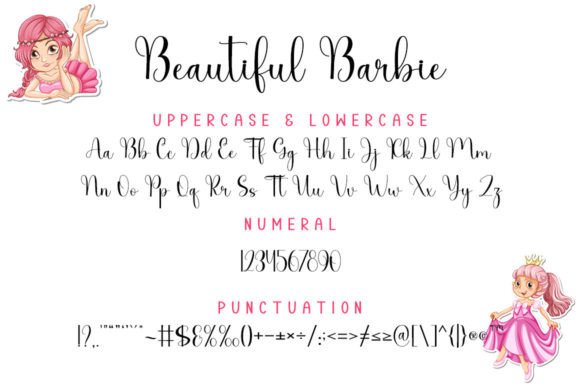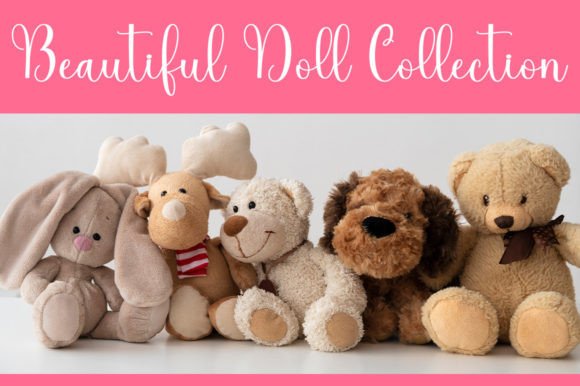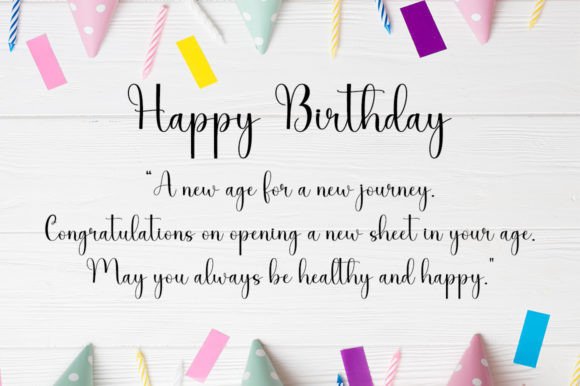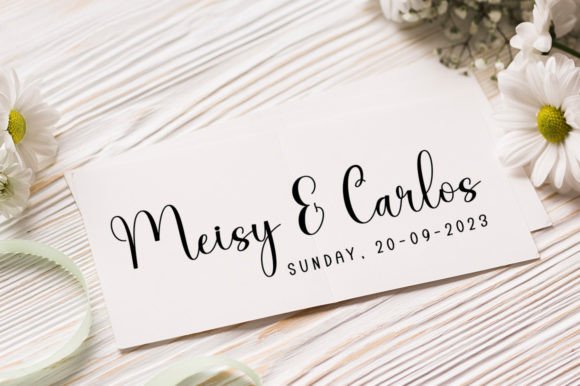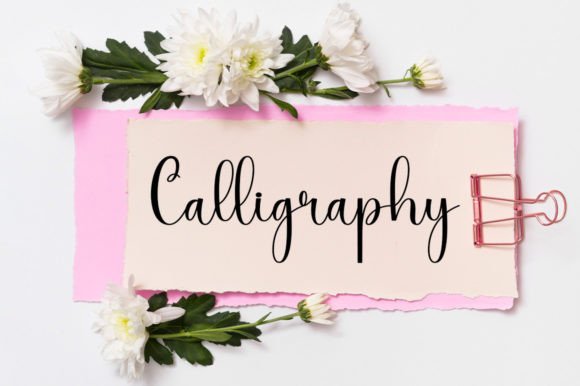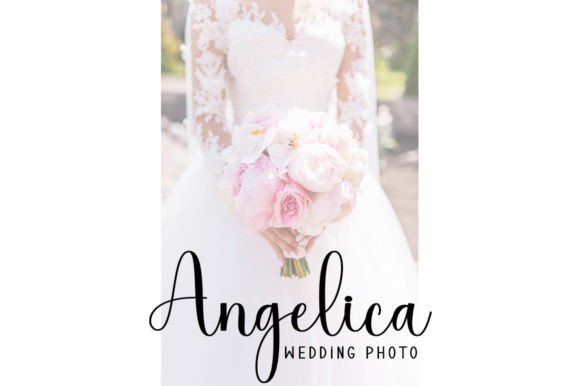
Introducing the Beautiful Barbie Font: A Cute and Casual Handwritten Delight
Are you on the hunt for a font that exudes friendliness and approachability? Look no further than the Beautiful Barbie Font! This adorable handwritten font is perfect for designers, crafters, and DIY enthusiasts looking to add a personal touch to their creative projects. With its incredibly friendly feel, Beautiful Barbie is sure to turn any idea into a true piece of art.
What Makes Beautiful Barbie Font So Special?
Beautiful Barbie is a one-of-a-kind font that boasts a unique, hand-crafted aesthetic. Its casual and cute vibe makes it perfect for a wide range of applications, from social media graphics and Instagram posts to calligraphy scripts and DIY projects. Whether you’re a seasoned designer or a crafting novice, this font is sure to inspire your creativity and help you bring your ideas to life.
Perfect for Instagram and Social Media
In today’s digital age, having a strong online presence is crucial. With Beautiful Barbie Font, you can elevate your Instagram game and create stunning social media graphics that are sure to grab attention. This font is specifically designed to work well in digital formats, making it perfect for:
- Instagram posts and stories
- Facebook graphics and ads
- Twitter headers and posts
- Pinterest graphics and pins
Its friendly and approachable feel makes it ideal for building a strong brand identity and connecting with your audience.
Calligraphy Scripts for DIY Projects
Beautiful Barbie Font is not just limited to digital use. Its elegant and cursive feel makes it perfect for calligraphy scripts and DIY projects, such as:
- Handmade cards and invitations
- DIY home decor and signs
- Customized gifts and mugs
- Paper crafting and scrapbooking
With Beautiful Barbie, you can add a personal touch to your DIY projects and make them truly special.
Key Features of Beautiful Barbie Font
So, what sets Beautiful Barbie Font apart from other fonts? Here are some of its key features:
- Cute and casual handwritten aesthetic
- Incredibly friendly feel
- Perfect for digital and print use
- Works well in a variety of applications, from social media to DIY projects
- Elegant and cursive feel, ideal for calligraphy scripts
Tips for Using Beautiful Barbie Font
To get the most out of Beautiful Barbie Font, here are some tips to keep in mind:
- Pair with other fonts for a unique and creative look
- Use in combination with images and graphics for a visually appealing design
In conclusion, Beautiful Barbie Font is a must-have for designers, crafters, and DIY enthusiasts looking to add a personal touch to their creative projects. Its cute and casual handwritten aesthetic, incredibly friendly feel, and versatility make it perfect for a wide range of applications. Whether you’re looking for fonts for Instagram or calligraphy scripts for DIY projects, Beautiful Barbie Font is sure to turn any idea into a true piece of art!